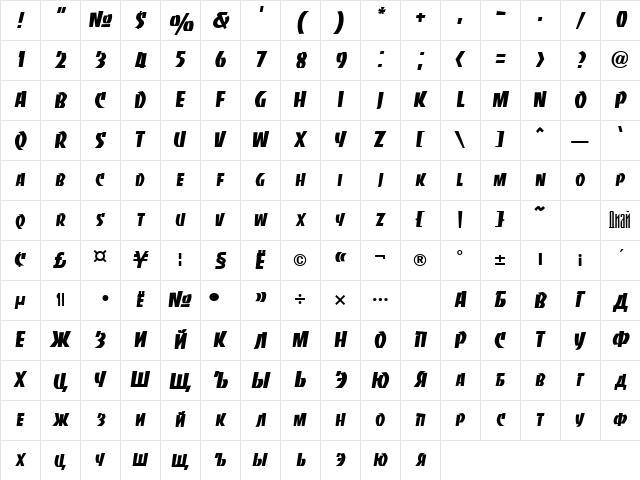
BancoDi Regular
Design Context for BancoDi
BancoDi is a composed and adaptable typeface that performs quietly and consistently across a wide range of design contexts.